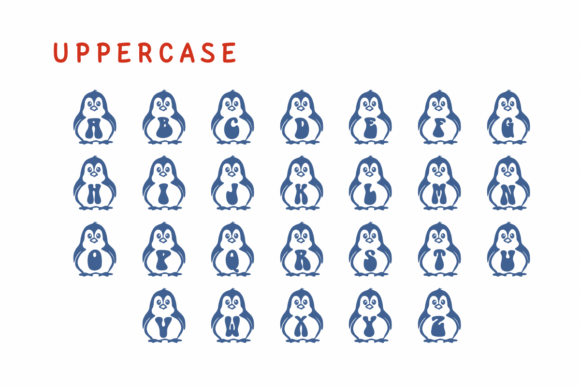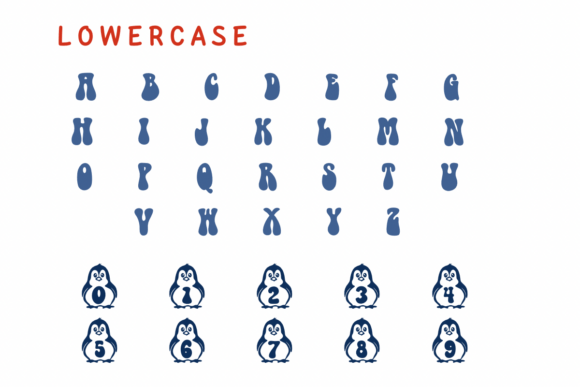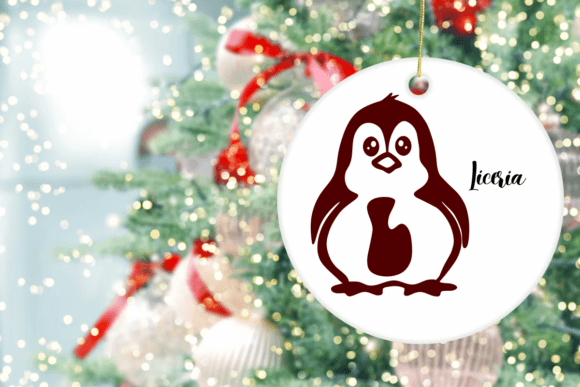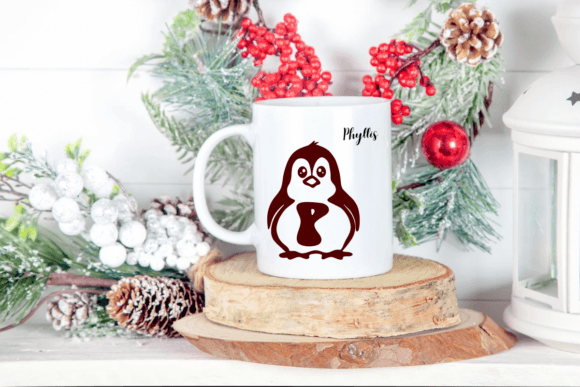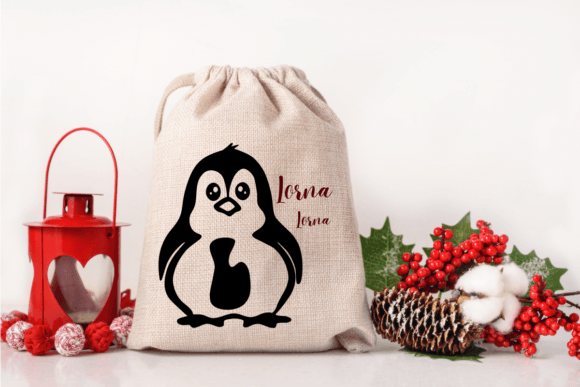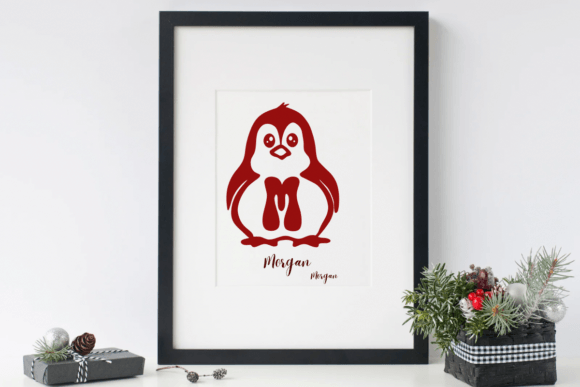
Introduction to Penguin Winter Font
Have you ever been brainstorming for a creative project and stumbled upon the perfect font to match your winter wonderland theme? For designers, finding that one font that brings a project to life can be a game-changer. The Penguin Winter Font is one such design resource that can add a touch of whimsy and charm to your work.
With its playful and endearing design, the Penguin Winter Font is perfect for taking notes, writing a diary, or making greeting cards. But its uses don’t stop there – it can also be applied to banners, content, mugs, cards, shirts, stationery, social media posts, and more. Whether you’re a seasoned designer or just starting out, the Penguin Winter Font is a valuable addition to your design toolkit.
Key Features of Penguin Winter Font
- Unique and festive design perfect for creative projects, especially during the winter season.
- Perfect for creating eye-catching titles, headings, and other design elements in your winter-themed project.
Honest Review: Penguin Winter Font
- ✨ The font’s playful, whimsical feel is perfect for winter-themed designs, such as holiday cards, gift tags, or even a winter wonderland-themed website.
- ✨ The high quality of the font is evident, with crisp, clear lines and a transparent background that makes it easy to use on any design surface.
- ⚠️ The font may not be suitable for formal or professional designs, as its playful feel may not be in line with more serious or corporate branding.
Overall, I’m impressed with the Penguin Winter Font’s versatility and high quality. It’s a great addition to any designer’s arsenal, and I can see it being used in a wide range of creative projects. Just be mindful of its limitations and use it in a way that complements your design vision.
Penguin Winter Font
The Penguin Winter Font is a high-quality design resource that can elevate your creative project to the next level. With its transparent background, this font is perfect for adding a touch of winter wonder to your designs.
Tips for Getting the Most Out of it
To get the most out of the Penguin Winter Font, use it in conjunction with other winter-themed design elements such as snowflakes, pinecones, and holly leaves. You can also use it to create a bold and eye-catching headline or title.
The Penguin Winter Font is perfect for designing winter-themed projects such as holiday cards, invitations, and social media posts. You can also use it to create a festive and fun atmosphere in your business or personal branding.